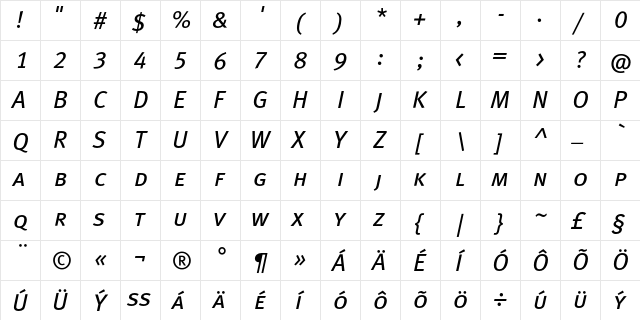
MetaBookCELF ItalicCaps
Design Context for MetaBookCELF Typeface
MetaBookCELF offers clean, dependable letterforms without strong stylistic allegiance, making it a practical choice for designers who need flexibility. Its italic angle brings a sense of urgency and motion to the letterforms.
Pro Tip: Try MetaBookCELF for annotation and caption copy alongside an upright companion — the contrast in angle creates a dynamic but ordered typographic system.